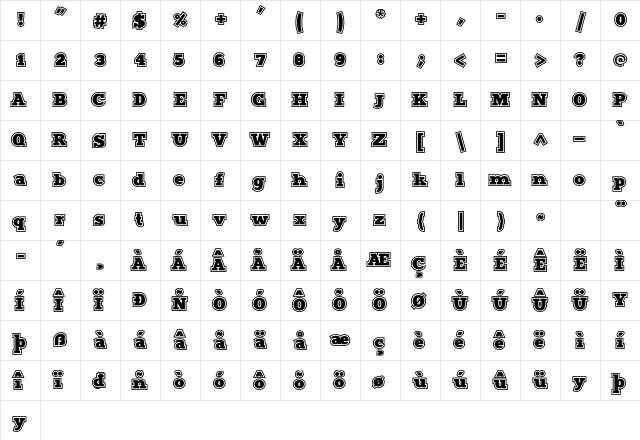
212 Sports Regular
Design Context for 212 Sports Typeface
212 Sports has the bold swagger of sports branding: strong, assertive letterforms designed to dominate headlines and jerseys alike.
Built for sports team identities, athletic apparel, event posters, and high-energy promotional material.
Font Pairing: Use alongside a condensed or geometric sans for supporting copy — keep the pairing bold, functional, and free of ornament.
Pro Tip: 212 Sports thrives on contrast — try it large, bold, and tight against a clean background for maximum visual impact.